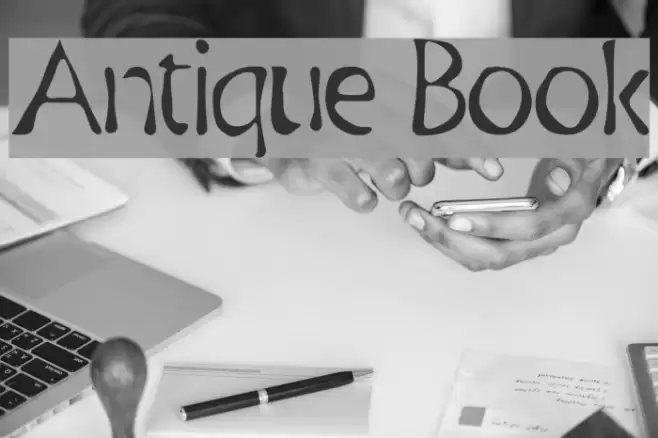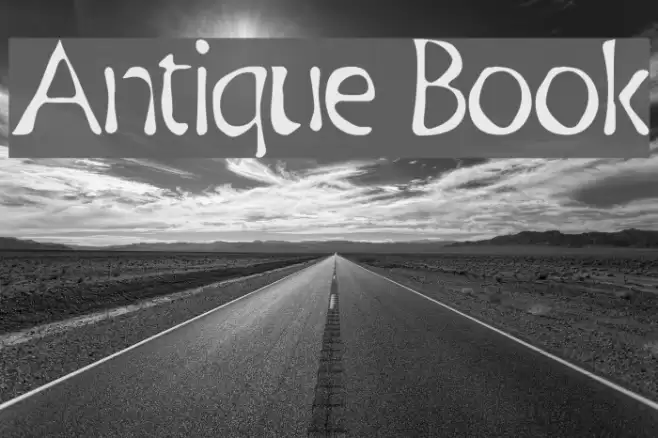
Antique Book Font
Antique Book Description
This font features a unique and artistic style, reminiscent of hand-drawn calligraphy with a vintage flair. The characters exhibit a slightly irregular and organic form, giving them a whimsical and playful appearance. The uppercase letters are bold and prominent, while the lowercase letters maintain a consistent flow with gentle curves. The numerals are distinct and easy to read, complementing the overall aesthetic. Special characters are creatively designed, adding to the font's charm. This font is ideal for projects that require a touch of nostalgia and creativity.
A whimsical, hand-drawn style with a vintage flair from Uncategorized fonts.
- Proposed Projects: Perfect for book covers, greeting cards, posters, and branding that seeks a nostalgic or artistic touch.
- Overall Style: Vintage, Artistic
- Use Case: Headlines, Logos, Decorative text